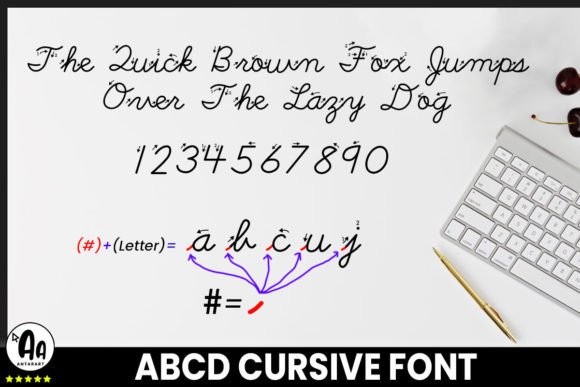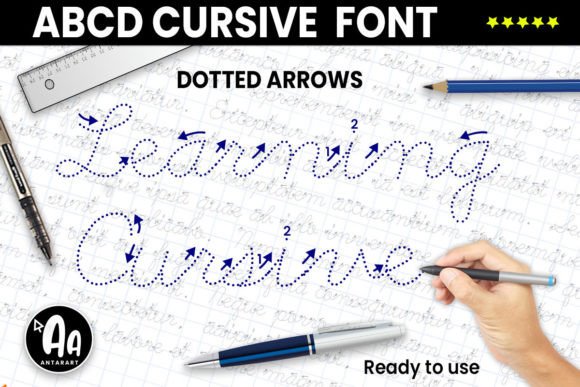
The Ultimate Guide to Abcd Cursive Dotted Arrows Font
I’ll never forget the moment I stumbled upon the Abcd Cursive Dotted Arrows font while working on a project for a client who needed a fun and interactive way to teach cursive handwriting. As a designer, I was on a mission to find the perfect font that would make learning enjoyable and engaging. And, boy, was I in luck! The Abcd Cursive Dotted Arrows font was exactly what I needed – a handwritten font that would help me create thousands of worksheets using any software.
- ✅ The font’s unique cursive style with dotted arrows makes it perfect for teaching handwriting.
- ✅ It’s incredibly versatile and can be used for various projects, from worksheets to posters.
- ✅ The font is easy to read and understand, making it ideal for learners of all ages.
While the Abcd Cursive Dotted Arrows font is amazing, there are a few things to keep in mind:
- 🤔 Some users might find the font a bit too playful for certain projects.
- ⚠️ The font’s dotted arrows can be a bit tricky to work with in certain software.
The Abcd Cursive Dotted Arrows font was designed with the intention of creating a fun and interactive way to learn cursive handwriting. The designer, a passionate advocate for education and creativity, wanted to create a font that would make learning enjoyable and engaging. And, with the Abcd Cursive Dotted Arrows font, they’ve succeeded in creating a truly unique and versatile font.
Q: What is the Abcd Cursive Dotted Arrows font?
A: The Abcd Cursive Dotted Arrows font is a handwritten font designed to help teach cursive handwriting in a fun and interactive way.
Q: Is the Abcd Cursive Dotted Arrows font suitable for all ages?
A: Yes, the font is suitable for learners of all ages, from children to adults.
Q: Can I use the Abcd Cursive Dotted Arrows font with other fonts?
A: Yes, the font can be paired with other fonts to create visually appealing designs.